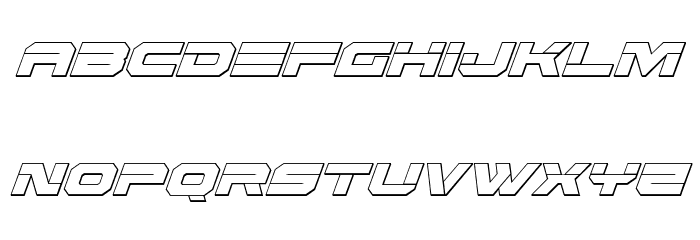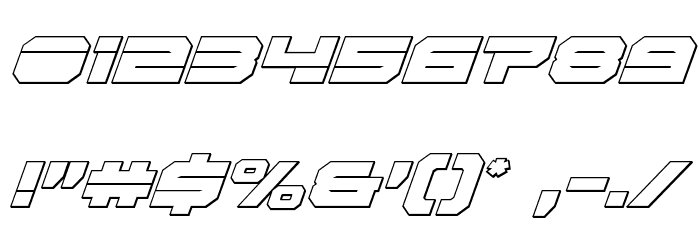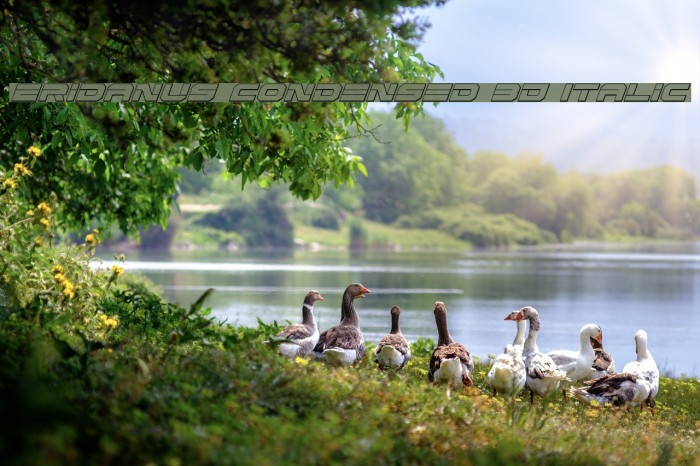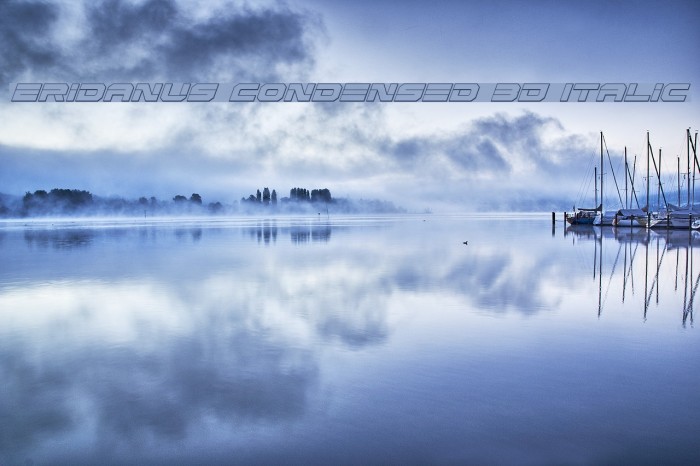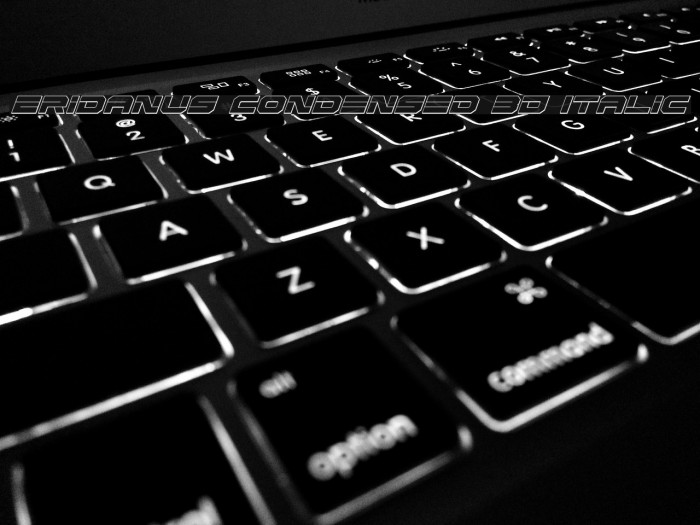
Eridanus Condensed 3D Italic Font
This font features a futuristic and dynamic design with a three-dimensional effect that gives it a unique depth. The characters are condensed and italicized, creating a sense of movement and speed. The geometric shapes and sharp angles contribute to its modern and edgy appearance. The font maintains a consistent line weight throughout, enhancing its sleek and streamlined look. It is particularly eye-catching due to its outlined style, which adds an extra layer of visual interest. The numerals and special characters are designed to match the bold and innovative style of the letters, making it a cohesive typeface suitable for various creative applications.
A futuristic, 3D, condensed italic font with a dynamic and modern style.
- Proposed Projects: Ideal for sci-fi themed projects, video game titles, tech branding, and futuristic posters.